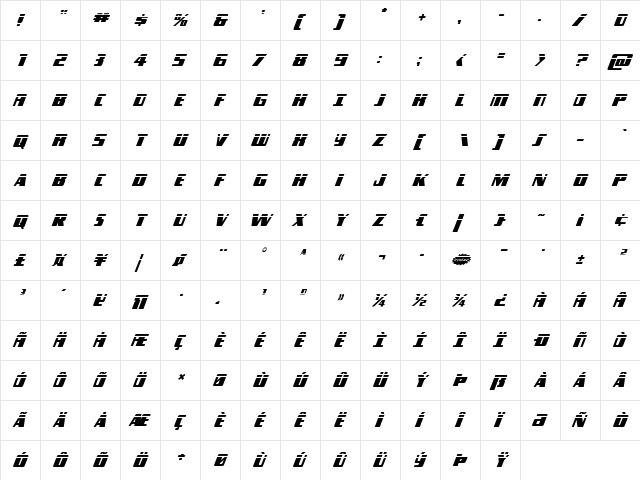
Typhoon Laser Italic Italic
Design Context for Typhoon Laser Italic Typeface
Typhoon Laser Italic is a composed and adaptable typeface that performs quietly and consistently across a wide range of design contexts. The slanted form adds forward momentum and visual energy.